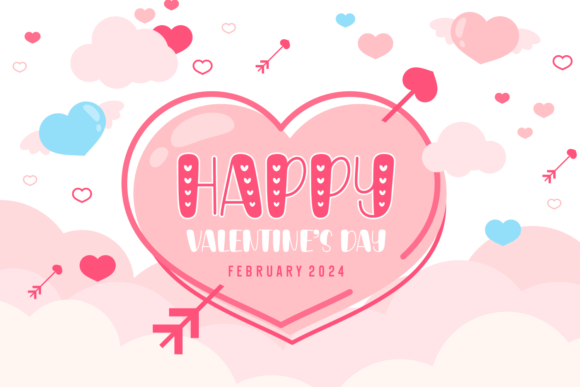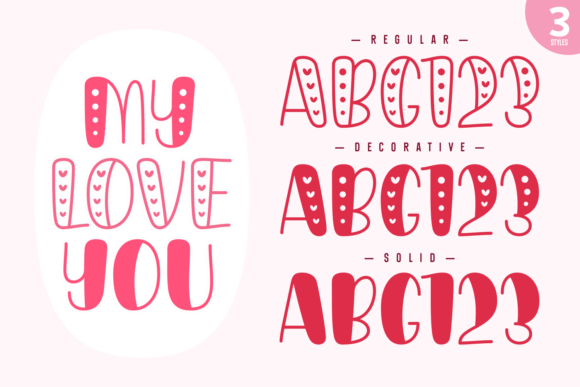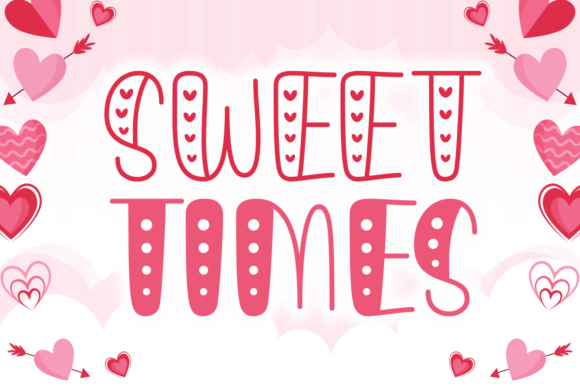
Introduction to Pinky Loves Font
Pinky Loves is a sweet handwritten font that adds a touch of charm to your projects.
What makes it extra special Little dots delicately enhance each letter, giving your text a playful and unique vibe.